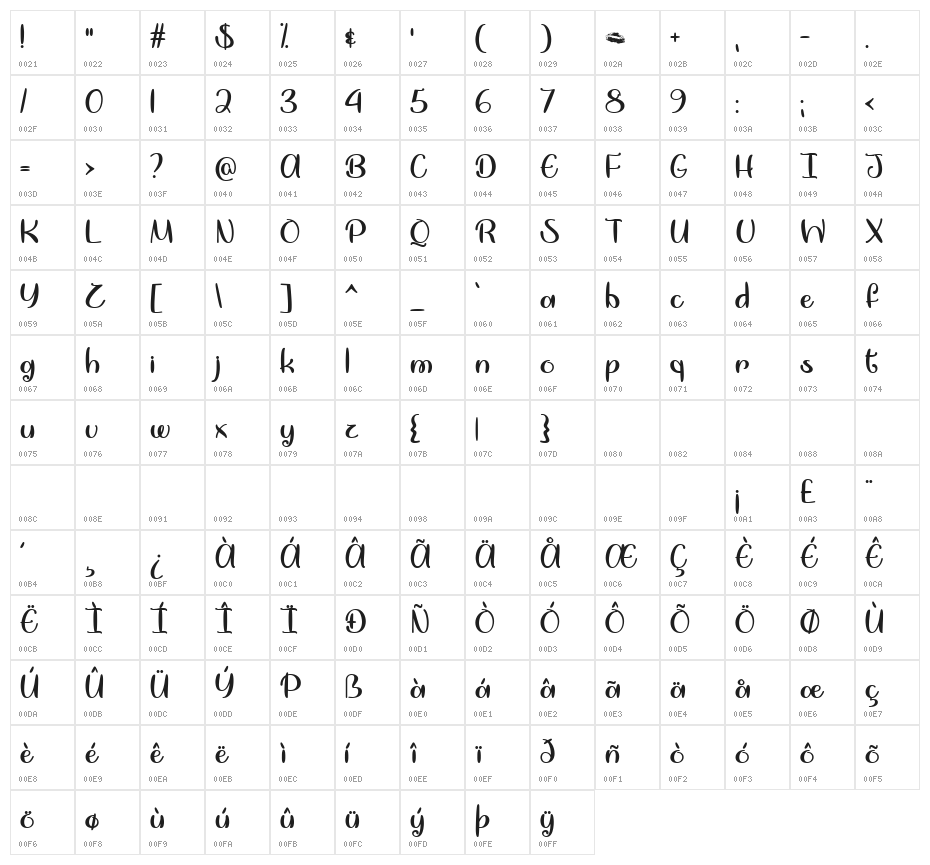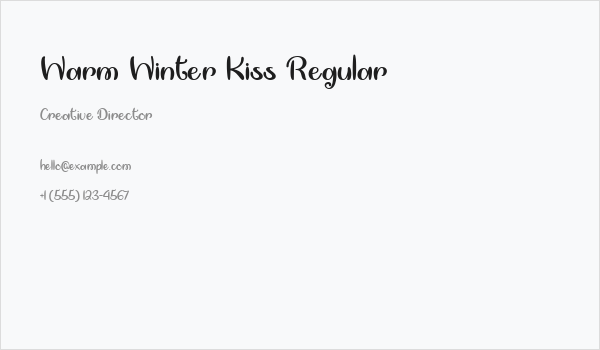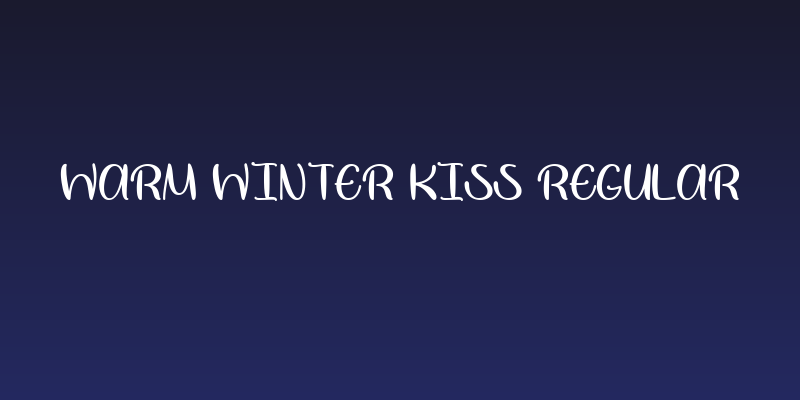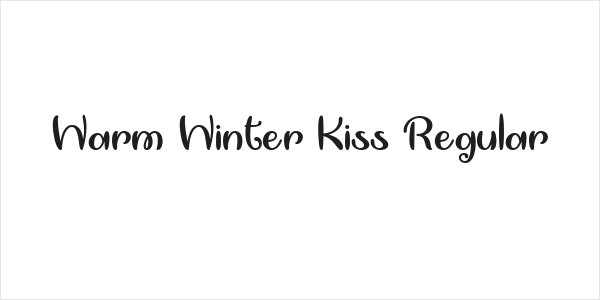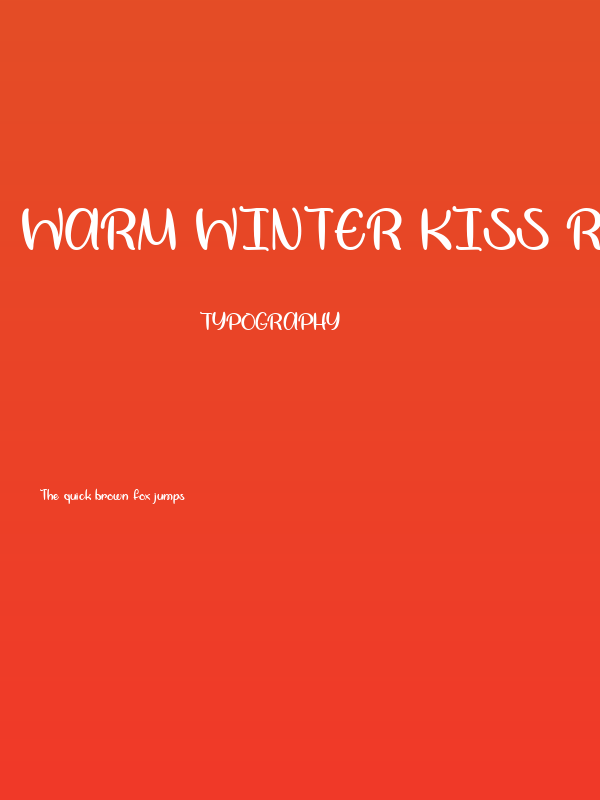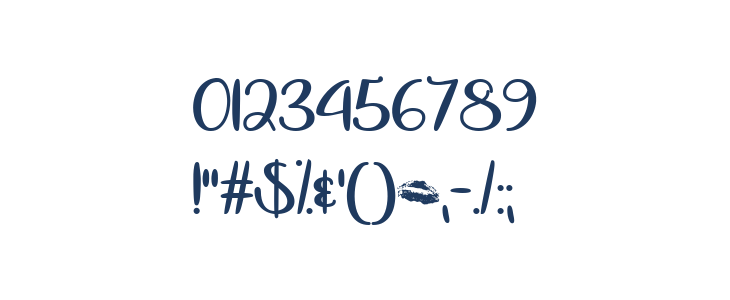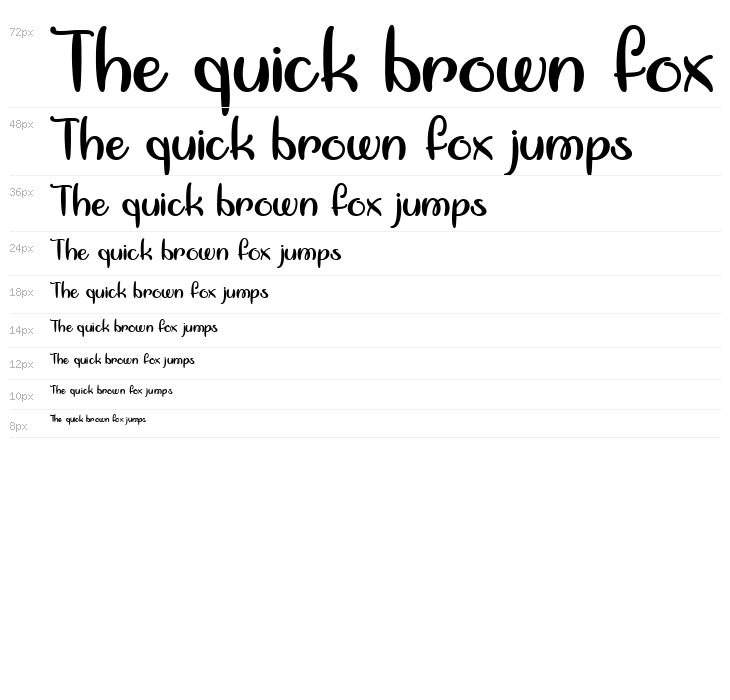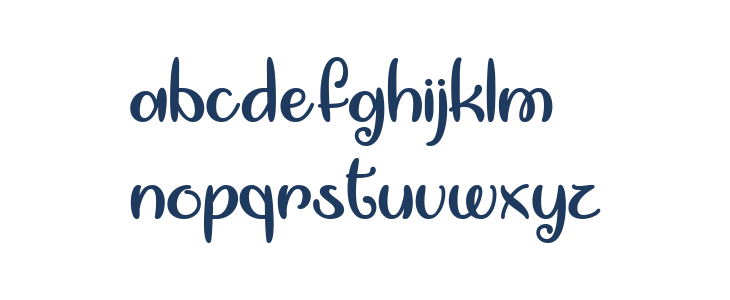
Warm Winter Kiss Regular Font
Warm Winter Kiss Regular Description
This playful and whimsical font features a hand-drawn aesthetic with a lively and energetic flow. The characters are rounded and bold, giving a sense of warmth and friendliness. The uppercase letters are slightly larger than the lowercase, maintaining a consistent width that enhances readability. The numbers and special characters are designed with the same playful style, adding a unique touch to any text. The font's overall appearance is casual yet stylish, making it suitable for a variety of creative projects.
| Proposed Projects | Ideal for greeting cards, children's books, playful branding, and social media graphics. |